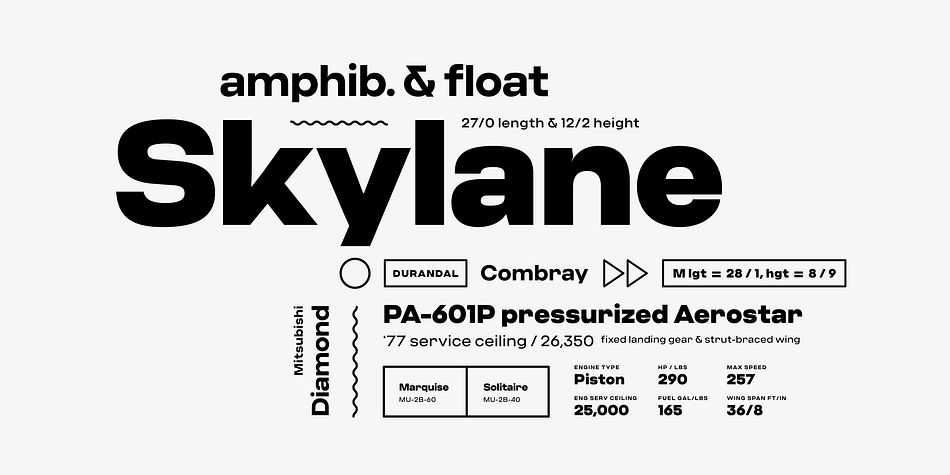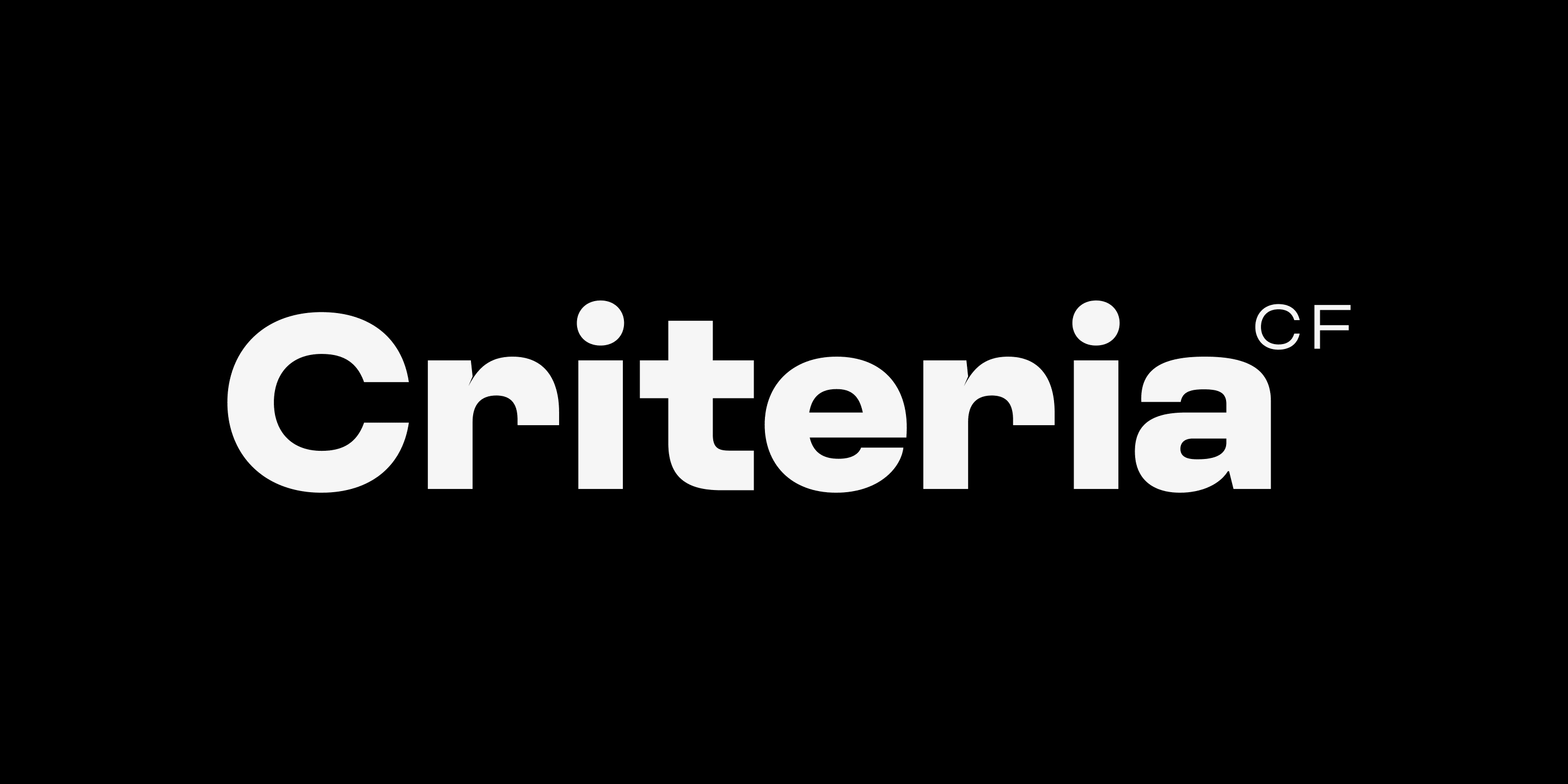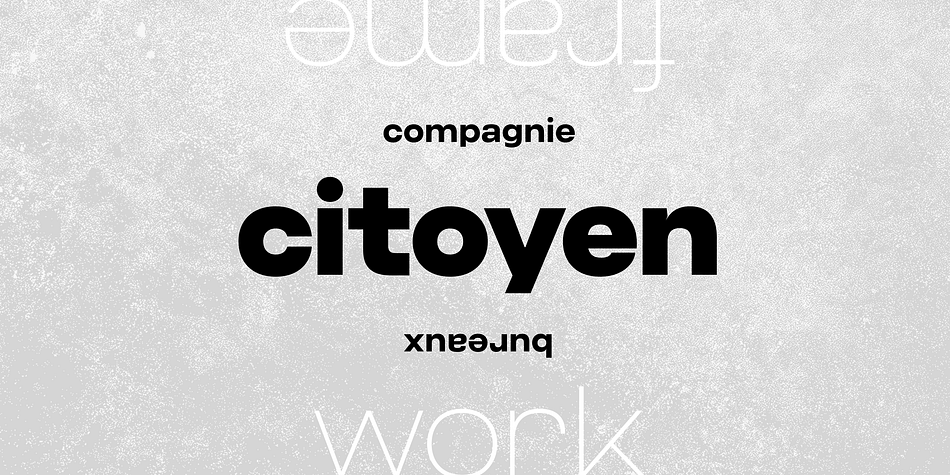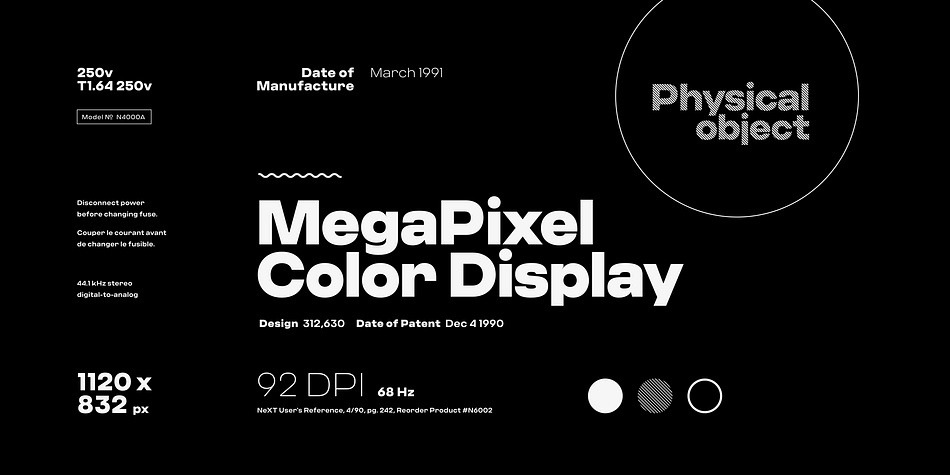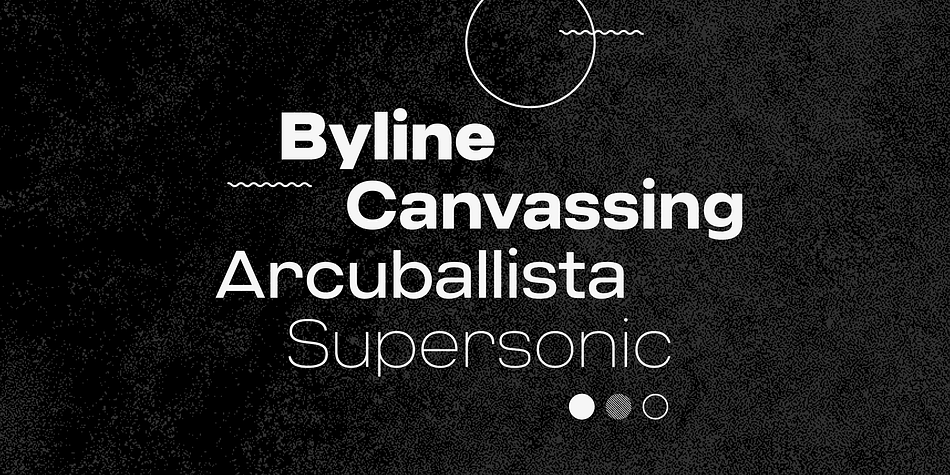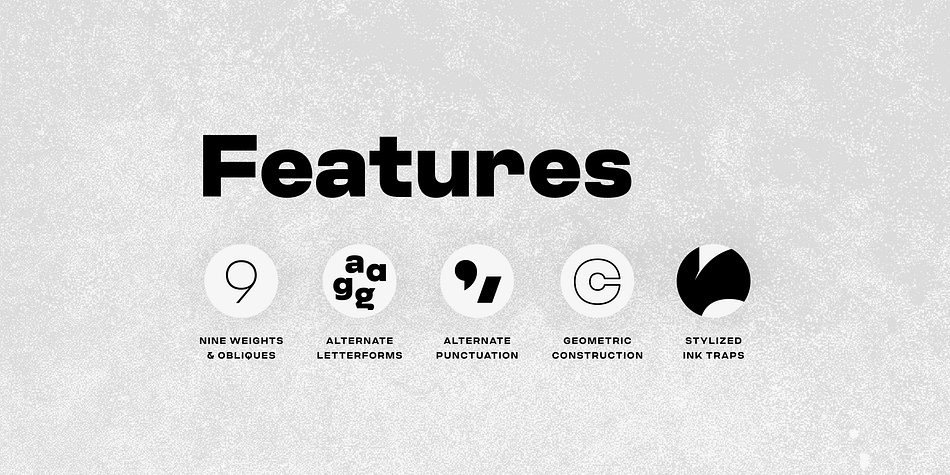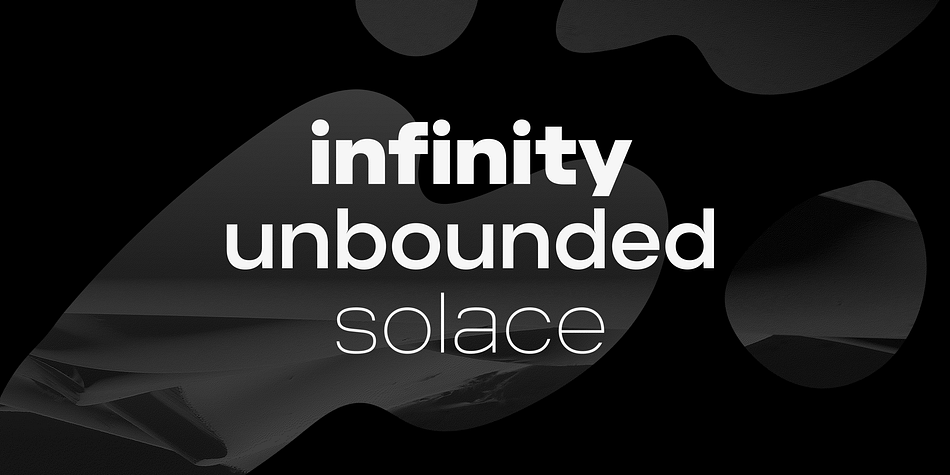
Designed by Connary Fagen, Criteria CF is a sans serif font family. This typeface has eighteen styles and was published by Connary Fagen Type Design.
Criteria CF is a geometric sans built with simple, efficient construction. Straight lines and clean circles combine with a thoughtful design that allows for cleanly-stacked lowercase text, striking headlines, and bold wordmarks. Hints of Swiss style and unconventional ideas add a fresh dimension to a strong geometric design.